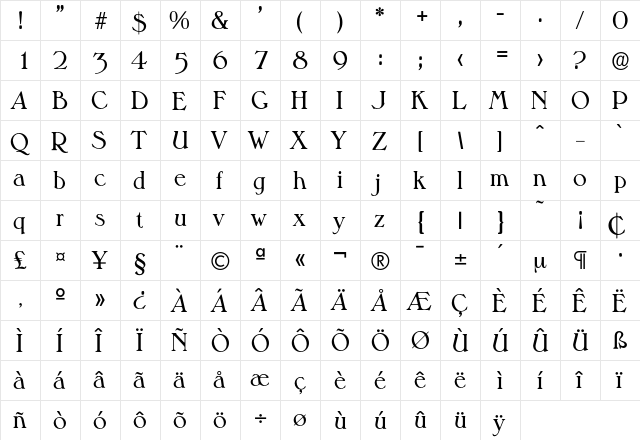
Melbourne-Medium Regular Font Preview
Melbourne-Medium Regular
Melbourne-Medium Regular Font Details
Design Context for Melbourne-Medium Typeface
Melbourne-Medium takes a measured approach to typography — its balanced proportions and neutral character make it a reliable workhorse for both digital and print work.